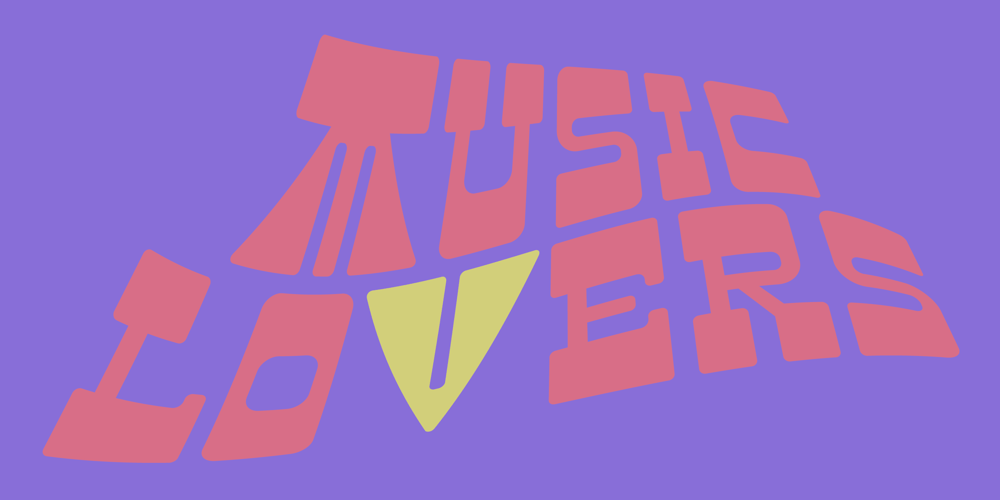
Moon Star Soul Font Family was designed by Ryoichi Tsunekawa and published by Dharma Type. Moon Star Soul contains 1 styles and family package options. Based on retro vinyl records in the early and middle of 20th century. the mixture of funky, hippie and mid-century’s futuristics. There are three other fonts designed by in the same concept. -Rebel Train Goes -Word From Radio -African Elephant Trunk -Moon Star Soul